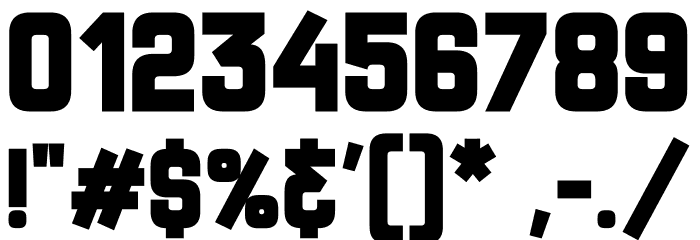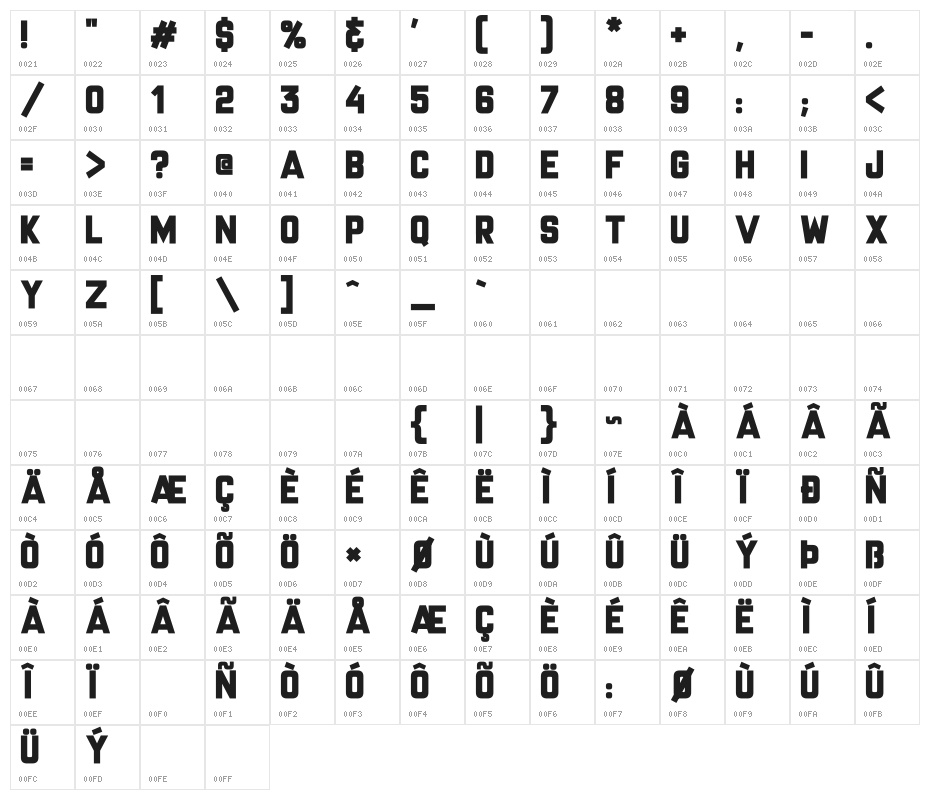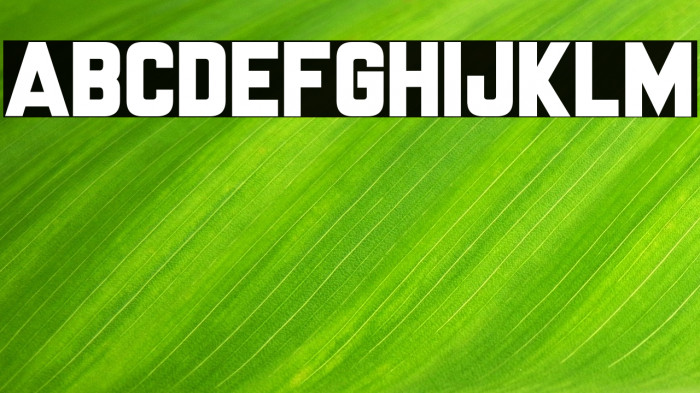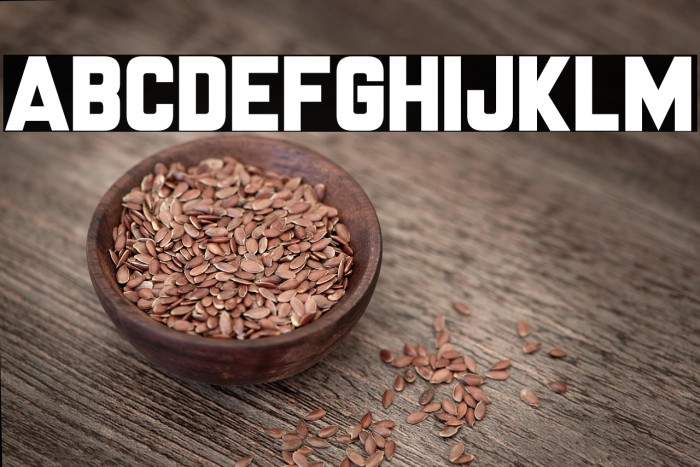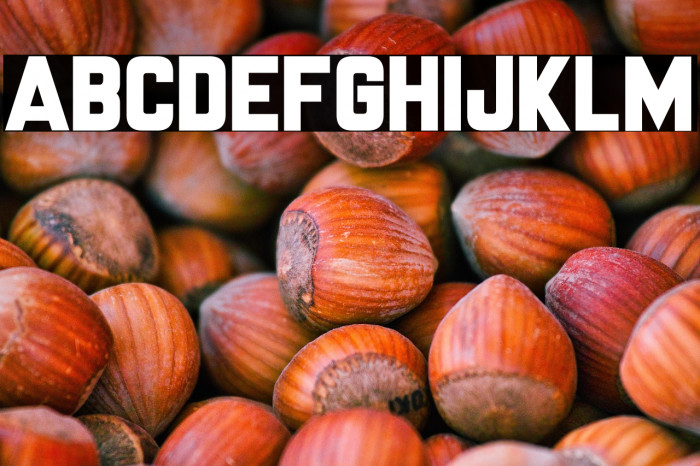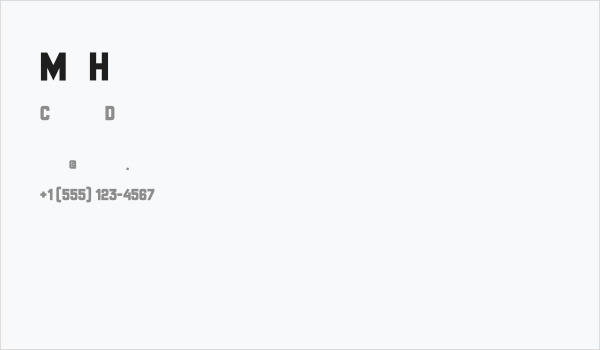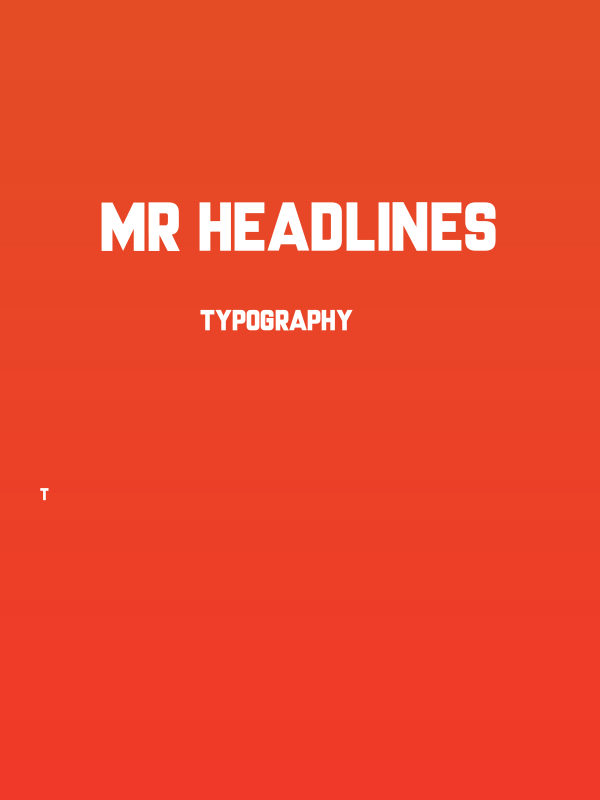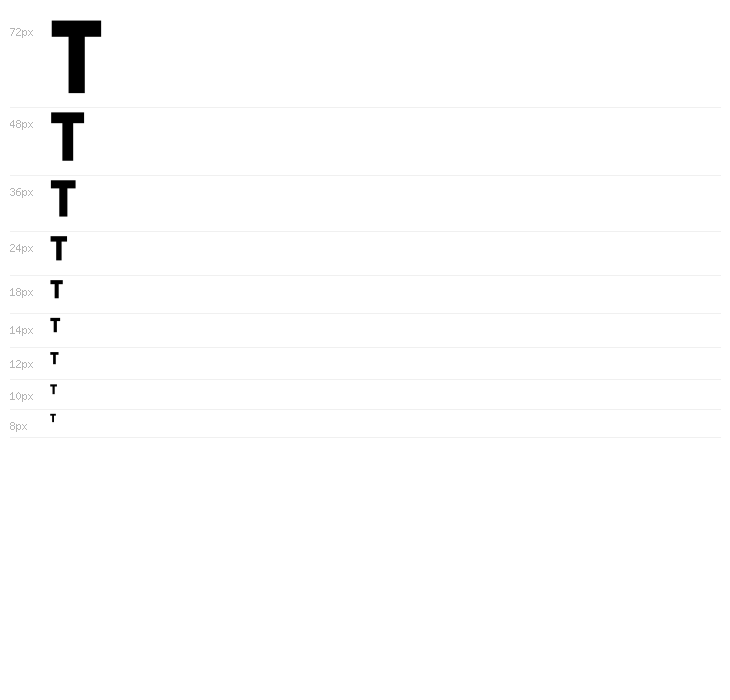
Mr Headlines Font
Mr Headlines Description
This font features a bold and impactful design, characterized by thick, uniform strokes and a strong geometric structure. The uppercase letters are particularly striking, with a block-like appearance that commands attention. The numerals and special characters maintain this robust style, ensuring consistency across all glyphs. The font's design is modern and assertive, making it ideal for applications where visibility and impact are crucial. Its clean lines and lack of serifs contribute to a contemporary aesthetic, while the even weight distribution across characters ensures readability.
| Proposed Projects | Ideal for headlines, posters, branding, and any design requiring a strong visual presence. |